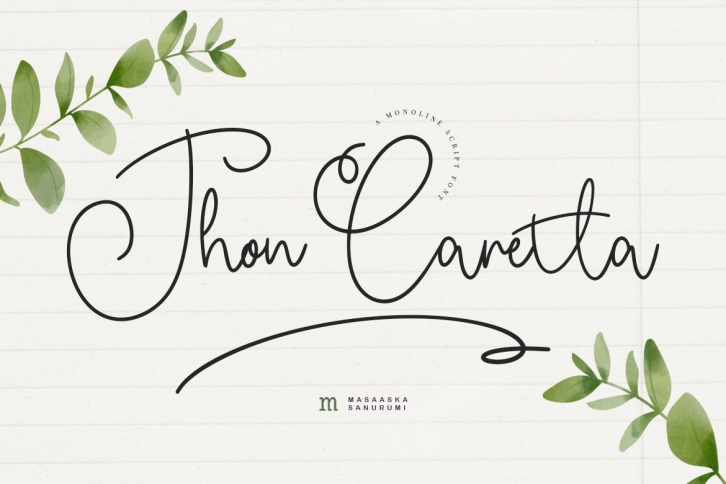
Jhon Caretta FONT Download
Jhon Caretta Font Download
Jhon Caretta is a beautiful and modern script font, defined by simplicity and style. Whether you’re looking for fonts for Instagram or calligraphy scripts for DIY projects, this font will turn any creative idea into a true piece of art!